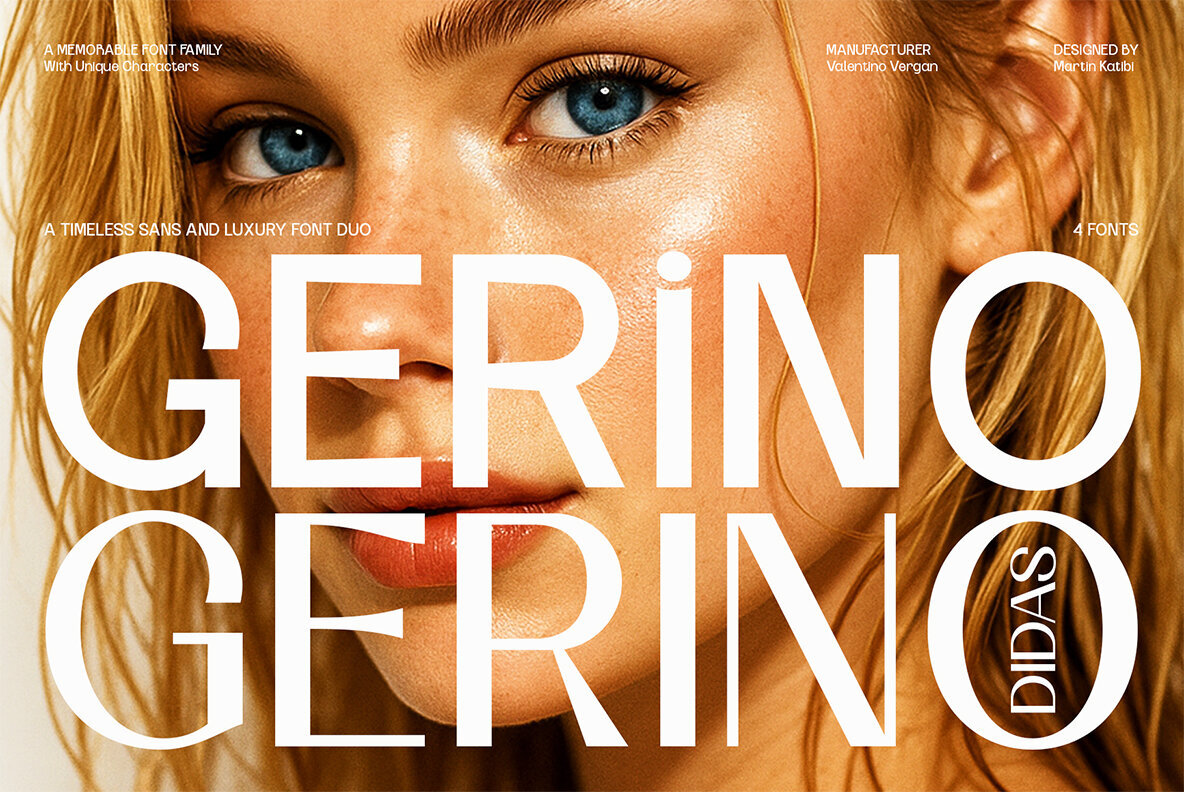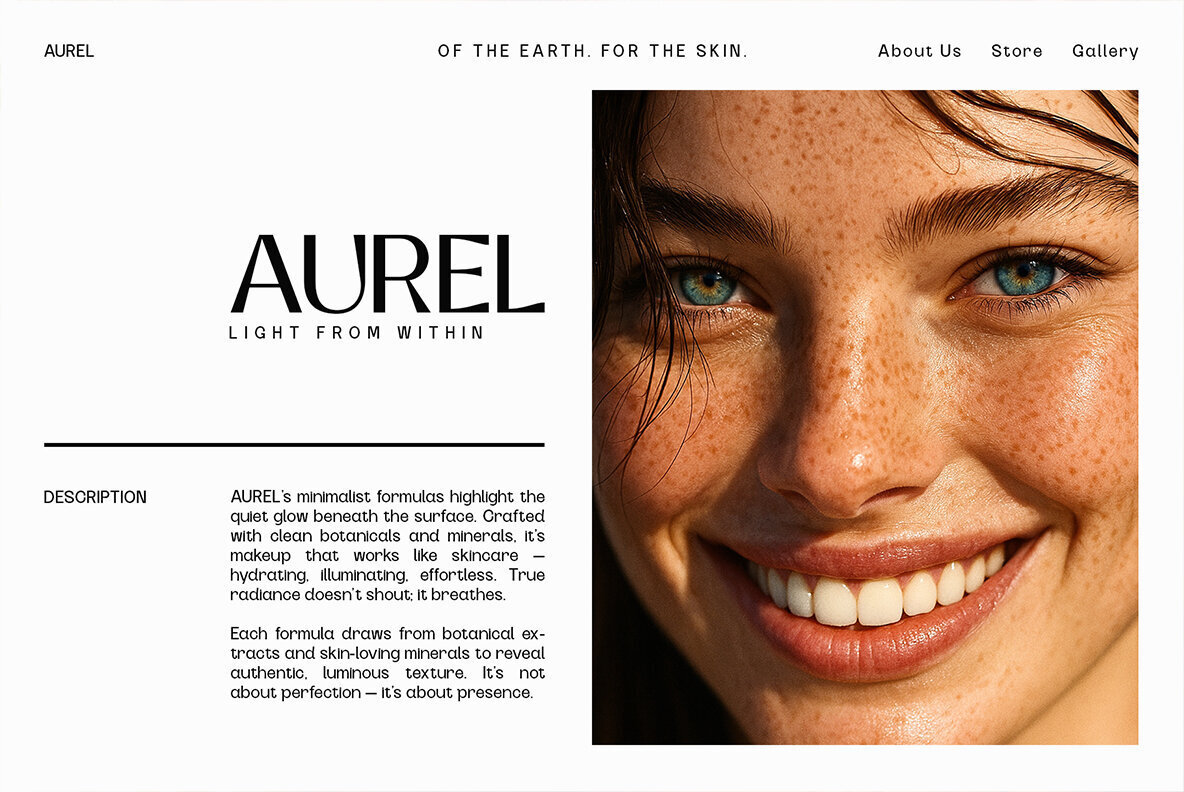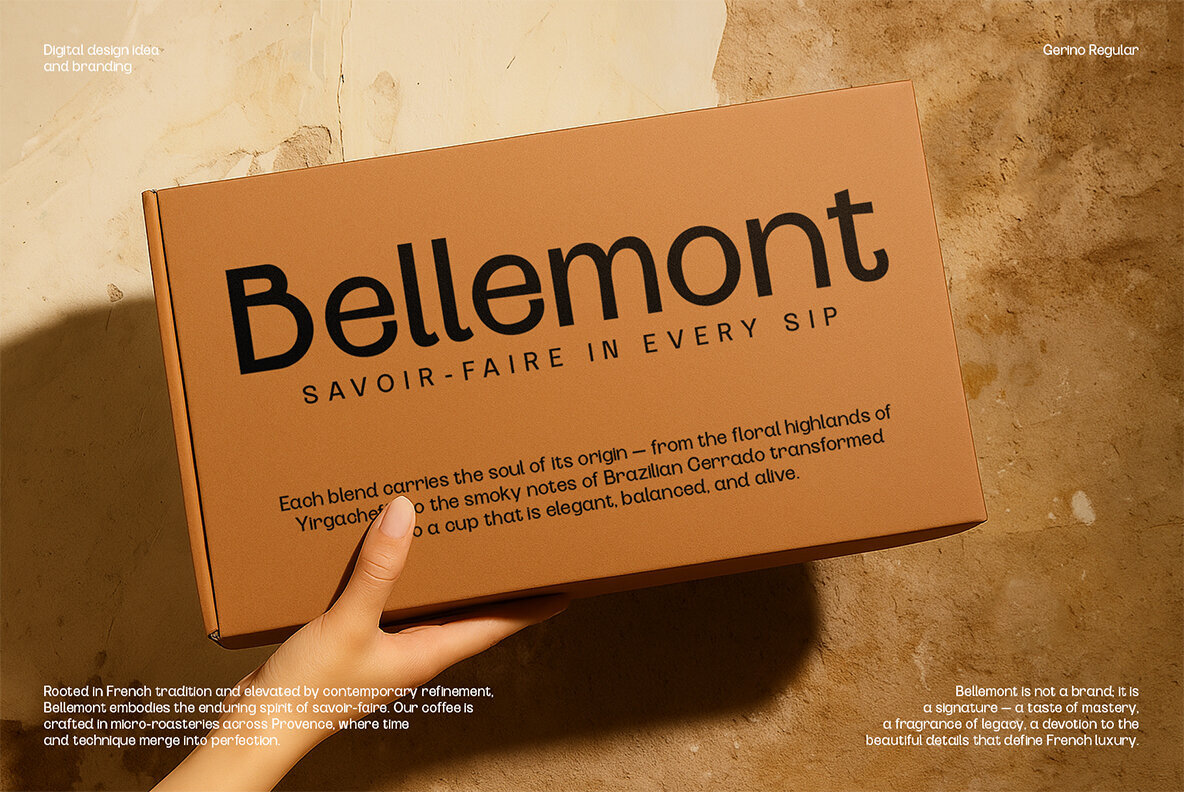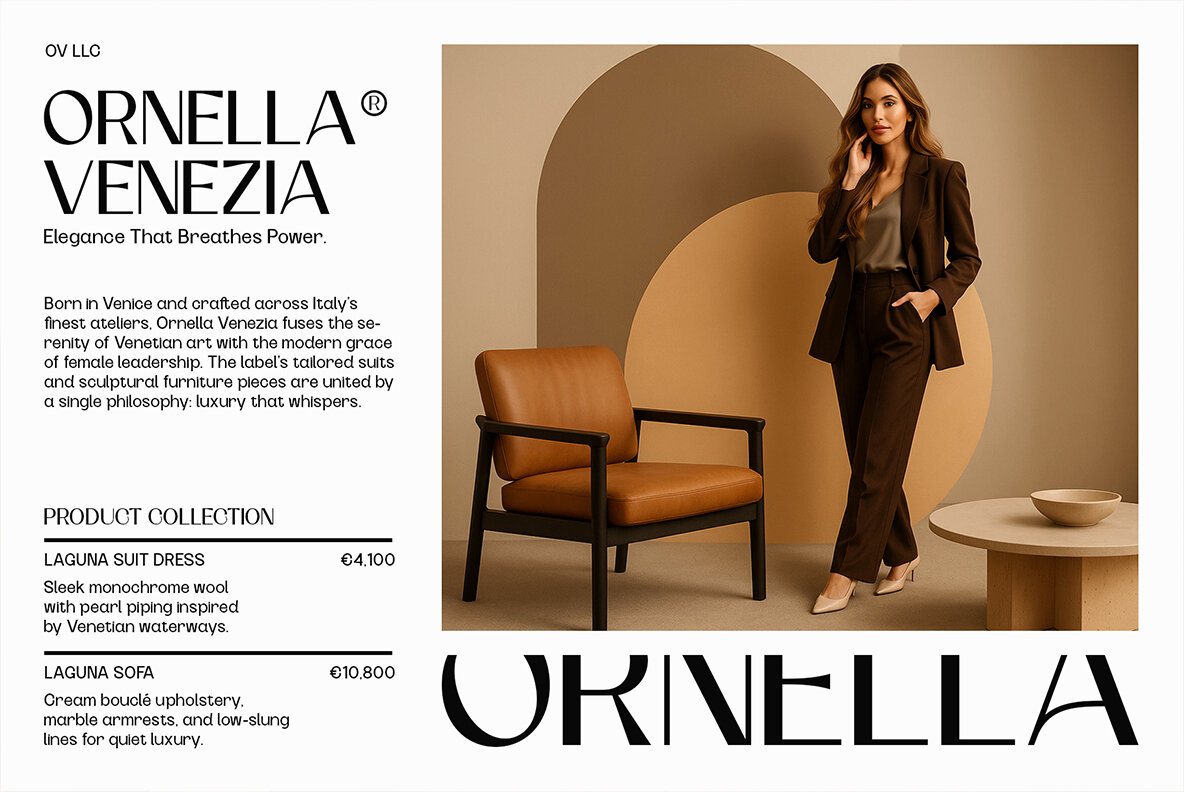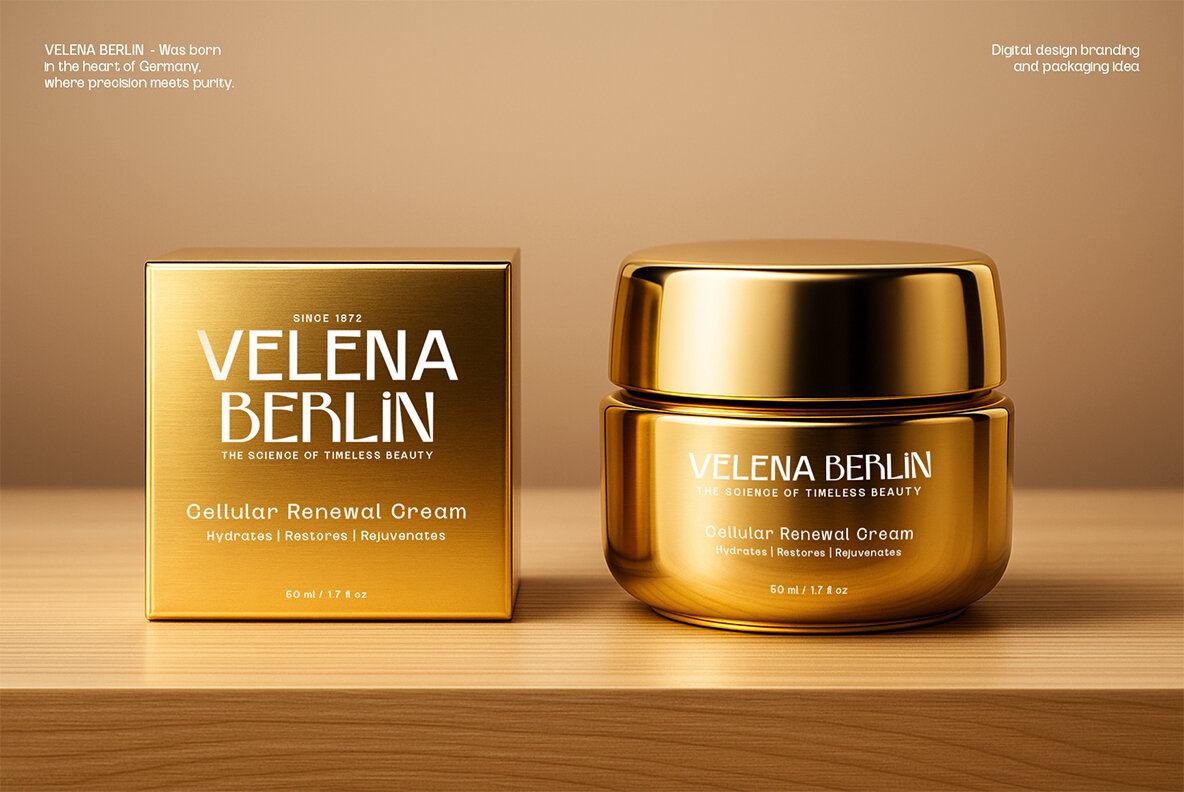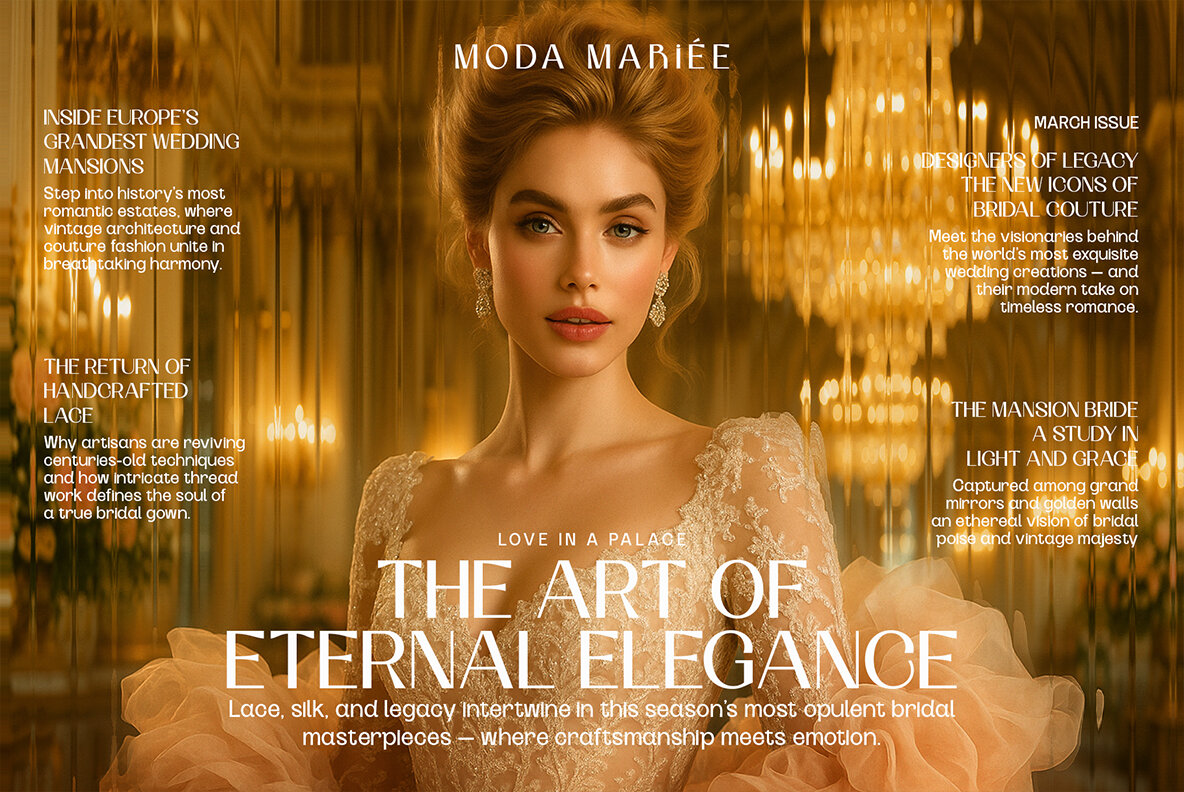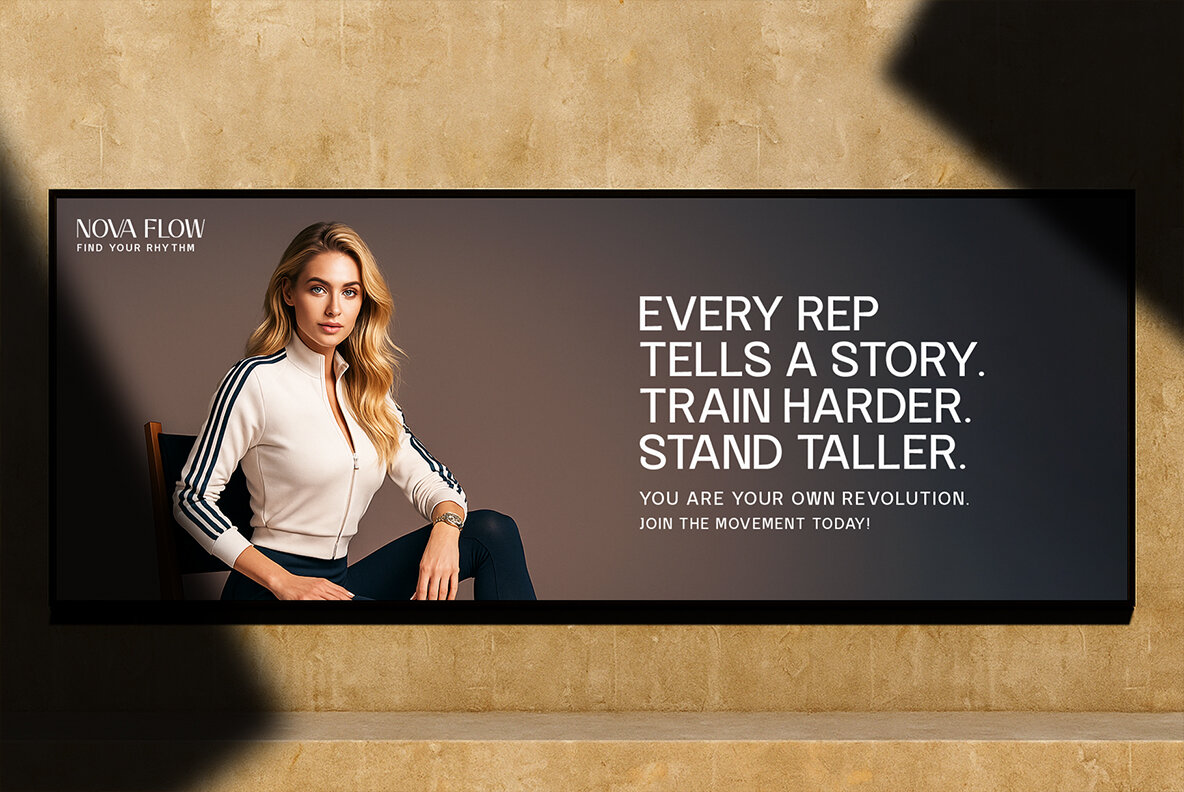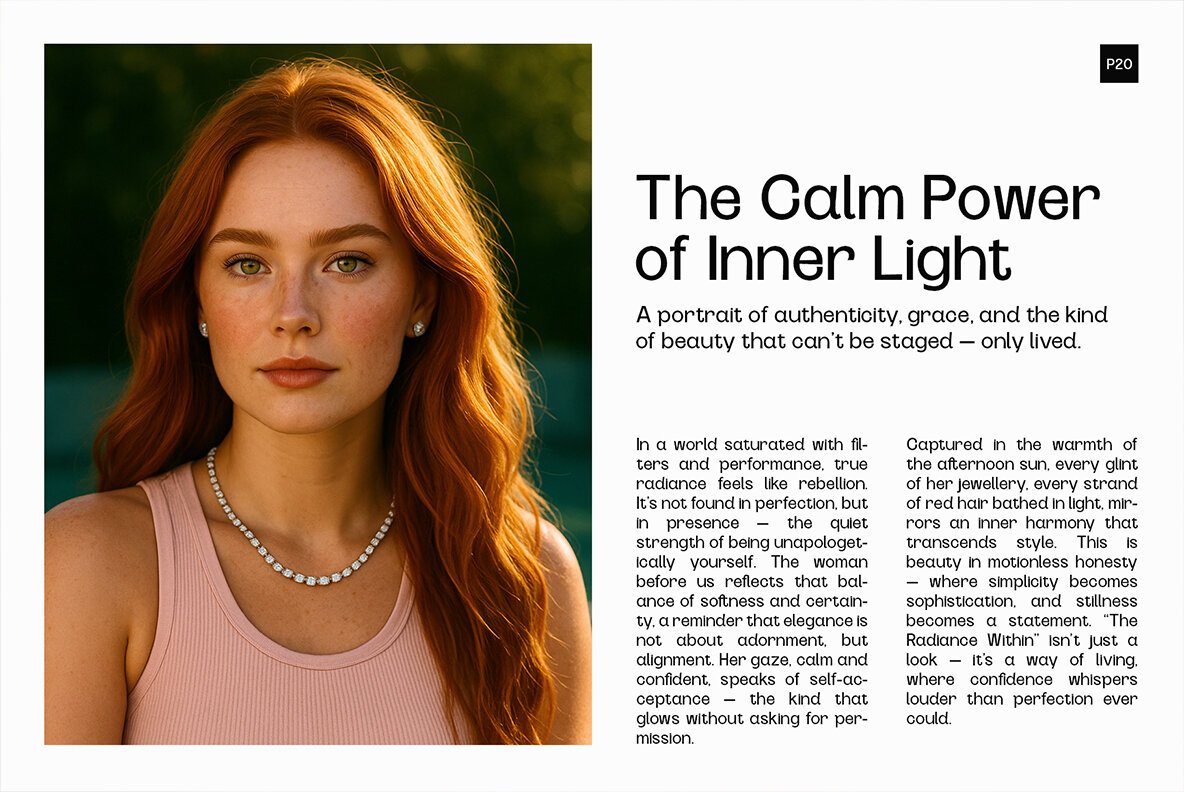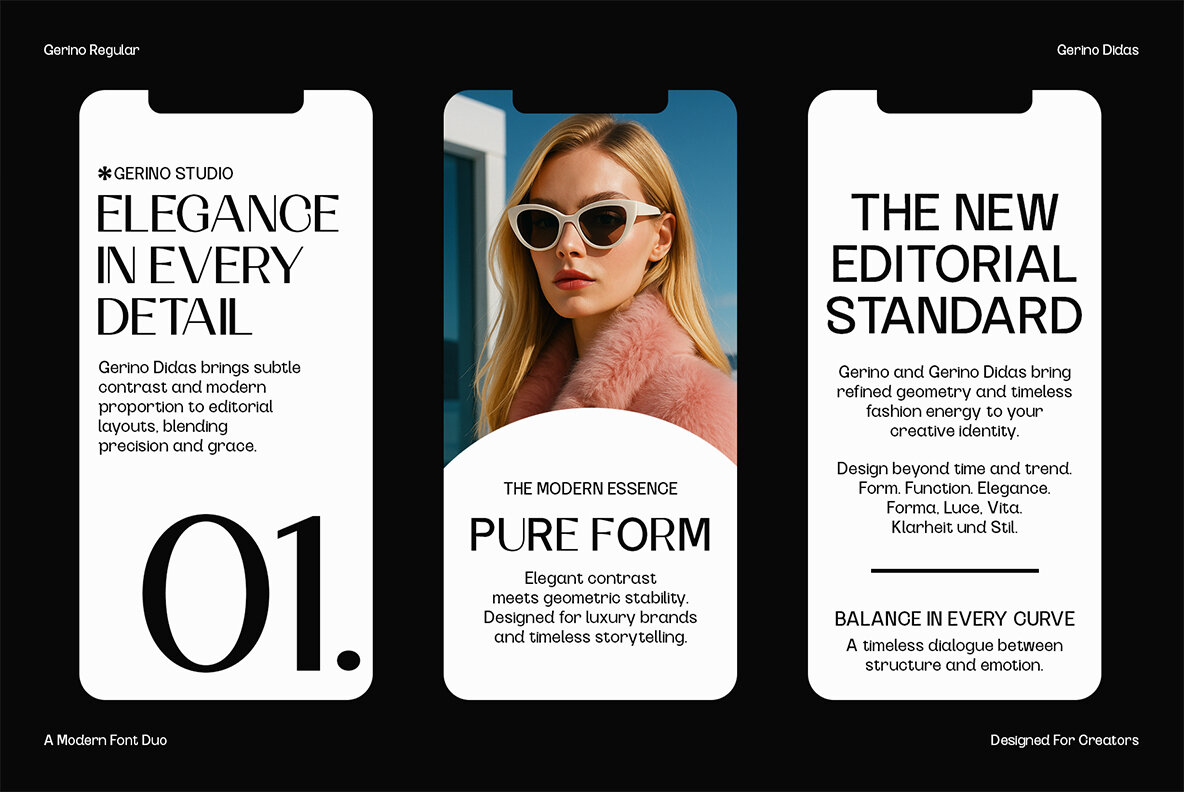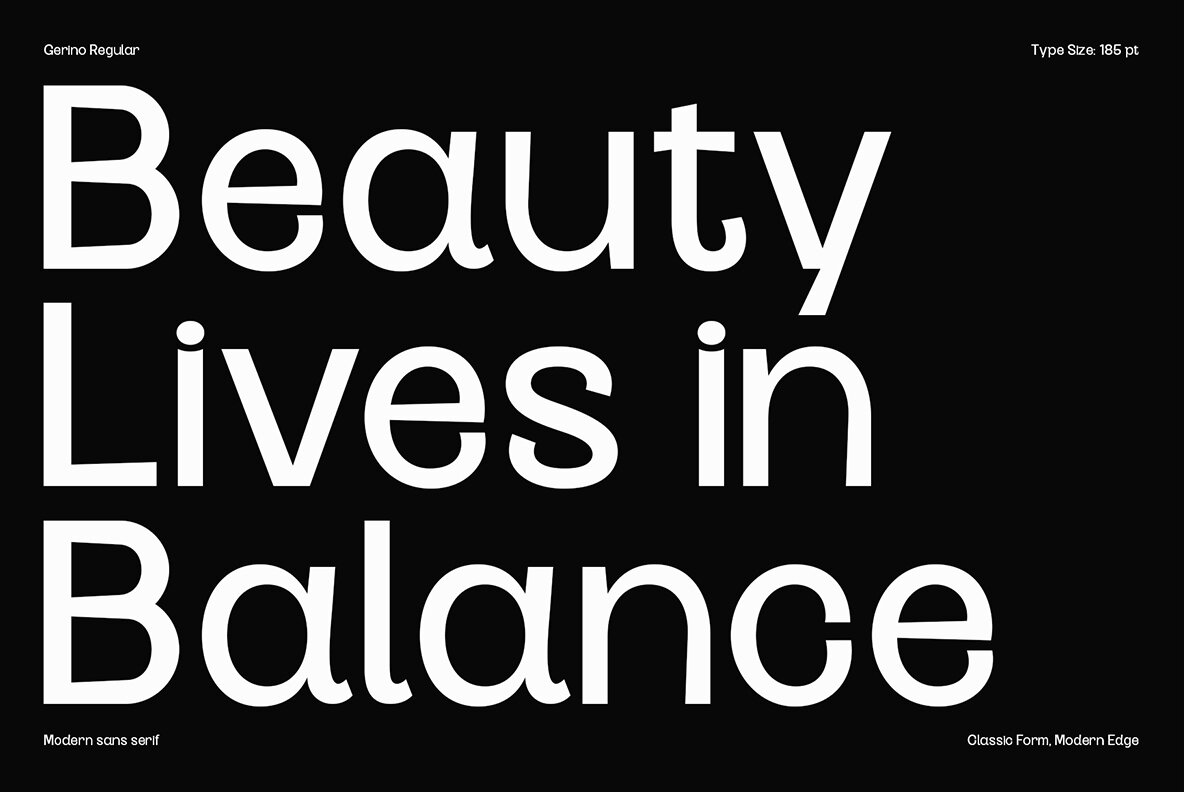
Gerino Font
Gerino Didas Regular
Gerino Regular
Gerino Oblique
Gerino Didas Oblique
Gerino and Gerino Didas present a contemporary approach to the sans-serif typeface, blending clarity, nuance, and a quiet sense of individuality. Designed with versatility at the forefront, this pairing balances geometric precision with unexpected character, making them a fitting choice for design studios and forward-thinking brands seeking distinction. Their structure supports both expressive display and refined text, offering designers a path to visual cohesiveness across digital and print environments. Gerino introduces a lively rhythm with subtle, deliberate quirks—a confident stance softened with warmth. Its clean lines and inviting presence suit standout logos, lifestyle branding, packaging, and editorial contexts. Gerino Didas, in contrast, embraces high contrast within a sleek sans-serif form. It reads as poised and composed, lending itself elegantly to fashion campaigns, magazines, or luxury-oriented branding environments. Used together, Gerino and Gerino Didas provide creative latitude and consistency, underpinned by a broad selection of alternate characters for tailored typographic expression. Gerino and Gerino Didas are designed for those who see type as integral to visual storytelling, bringing subtle contrast, clarity, and distinction to every project.Gerino and Gerino Didas: Expressive Sans-Serif Duo for Modern Design